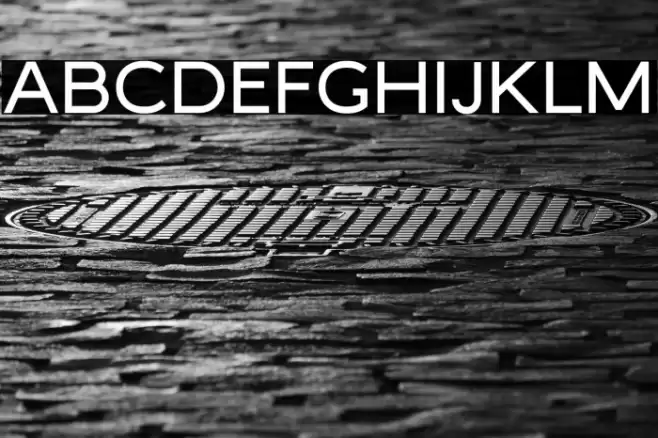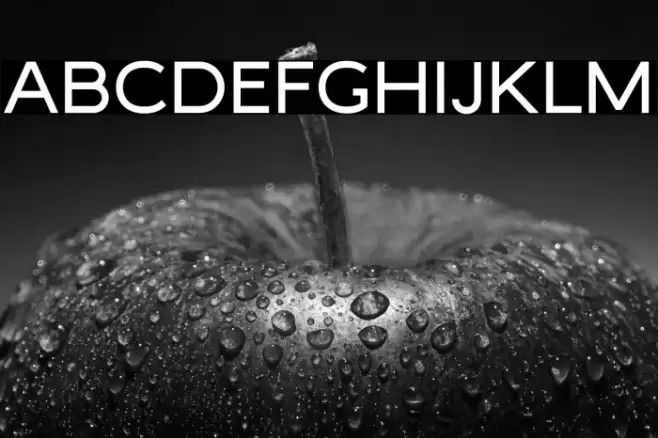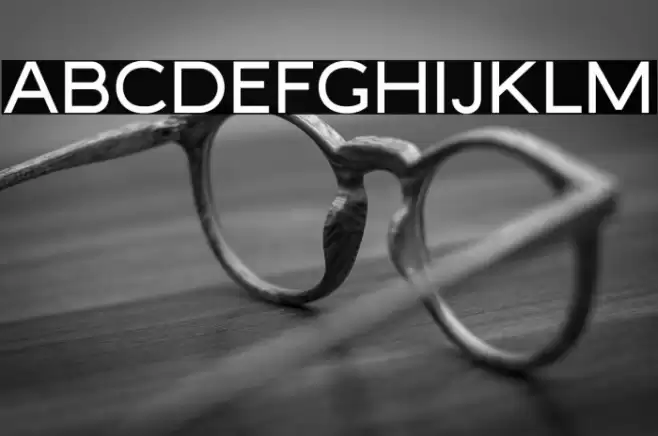
MalibuSunset-Sans Free Font
MalibuSunset-Sans Free Description
This font features a clean and modern sans-serif design, characterized by its simplicity and clarity. The uppercase letters are uniform in height, with straight lines and smooth curves that create a balanced and harmonious appearance. The lack of serifs gives it a contemporary feel, making it suitable for a wide range of applications. The font's geometric structure is evident in the consistent width of the strokes, providing a sense of stability and professionalism. It is versatile and can be used effectively in both digital and print media, offering excellent readability and a sleek aesthetic.
A modern, clean sans-serif font with a geometric structure and excellent readability from Uncategorized fonts.
- Proposed Projects: Ideal for branding, advertising, website headers, and corporate materials.